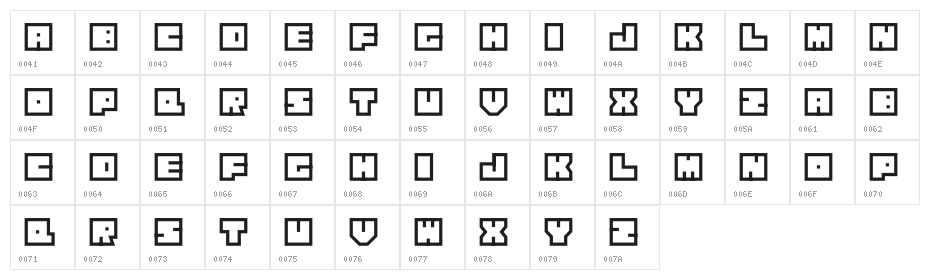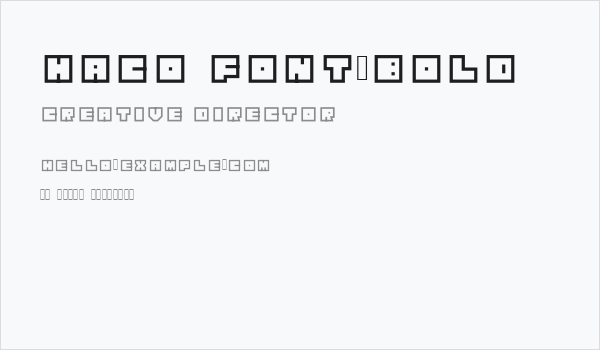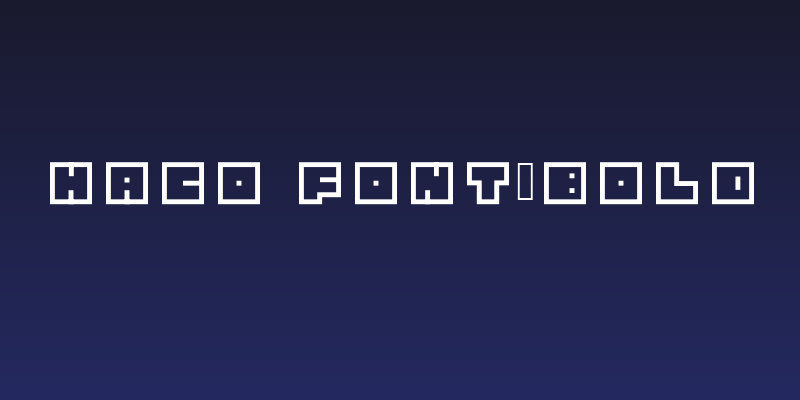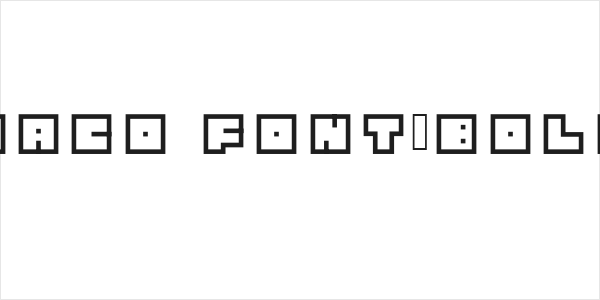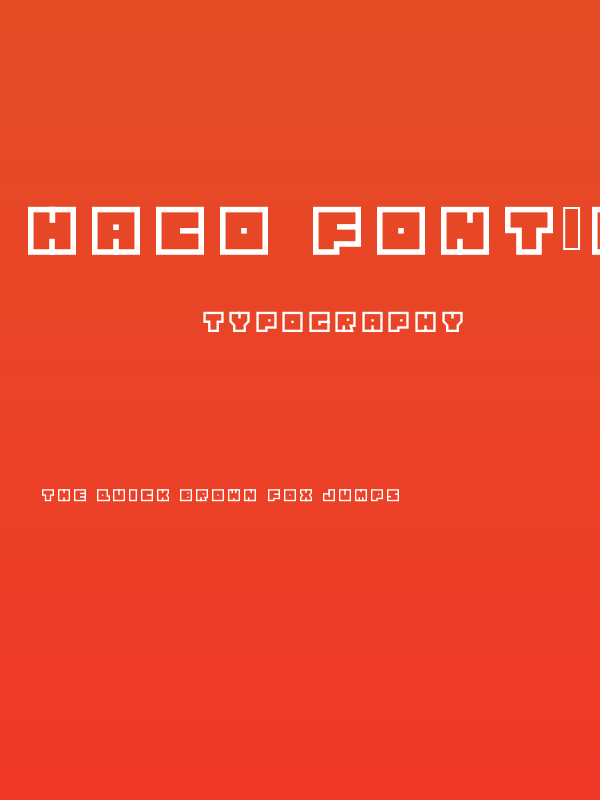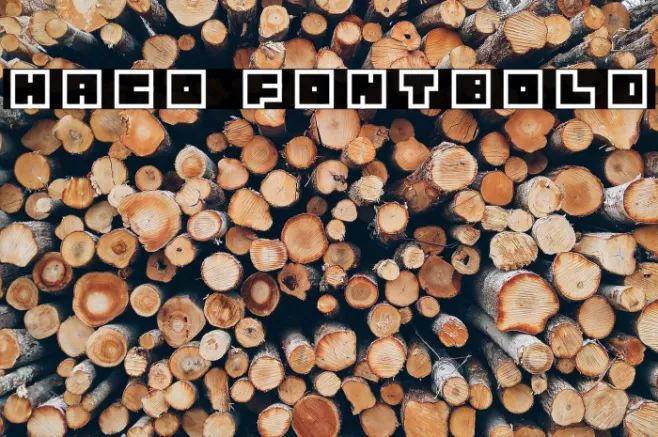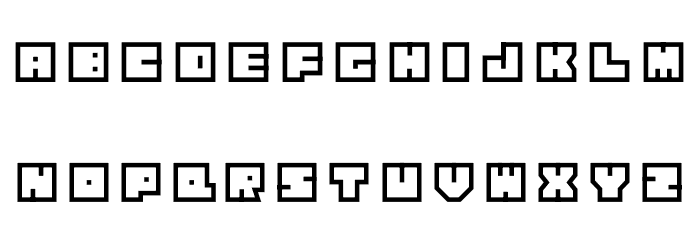
Haco Font-Bold Font
Haco Font-Bold Description
This font features a bold, geometric design with a strong emphasis on square and rectangular shapes. Each character is enclosed in a box-like structure, giving it a distinct, blocky appearance. The font has a uniform stroke width, contributing to its bold and impactful look. The characters are evenly spaced, providing a balanced and cohesive visual flow. The uppercase and lowercase letters maintain a consistent style, enhancing readability while retaining a unique, modern aesthetic. This font is ideal for projects that require a strong visual presence and a contemporary feel.
| Proposed Projects | Ideal for video game graphics, tech branding, posters, and modern digital interfaces. |